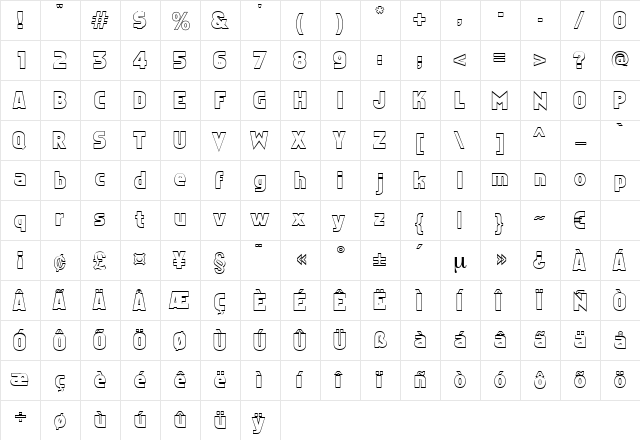
NarbonneOpen Regular
NarbonneOpen takes a measured approach to typography — its balanced proportions and neutral character make it a reliable workhorse for both digital and print work.